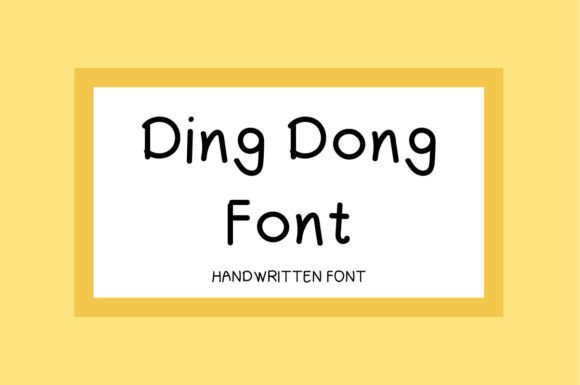
Step into the realm of captivating penmanship with Ding Dong, an exquisite script font that enchants every word with grace and charm. Allow your creativity to dance harmoniously with this font, designed to add a touch of elegance and authenticity to your projects. As a creation of elimoDesign, Ding Dong emerges as a testament to the power of handwritten expression, inviting you to infuse every letter with emotion and personality.
Born from the desire to evoke a sense of intimacy and connection, Ding Dong seamlessly blends the allure of handwritten notes with the precision of digital design. Its charming strokes will caress your creative endeavors, whether you're crafting heartfelt letters, designing enchanting invitations, or creating captivating social media posts that resonate with your audience.
Explore the boundless possibilities of self-expression with Ding Dong's versatile character set, which caters to various languages and embraces international symbols, including å, ä, and ö. This inclusive font effortlessly adapts to your multilingual needs, allowing you to communicate with a global audience with ease.
Unleash your imagination and watch as Ding Dong transforms your words into works of art. Embrace its unique style and let your creativity soar. Let Ding Dong become your trusted companion, adding a touch of magic to every project you undertake.